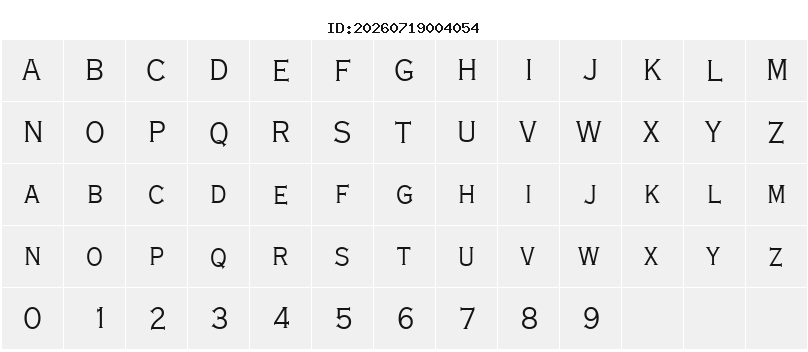
• Font Name: Copperplate-Cd-Light
• Full Font Name: Copperplate-Cd-Light-Regular
• Designer: SoftMaker Software GmbH
• Manufacturer: SoftMaker Software GmbH
About Copperplate-Cd-Light.ttf
Copperplate-Cd-Light.ttf is a modern, elegant sans-serif font designed for ultimate readability and visual harmony. Perfect for branding, headlines, web design, and print materials.